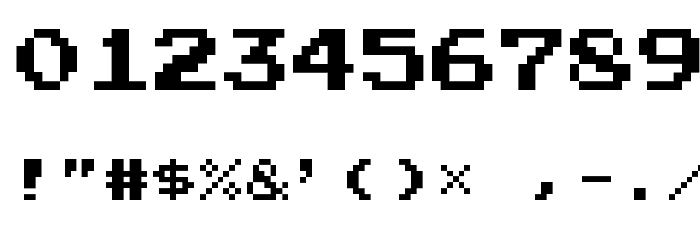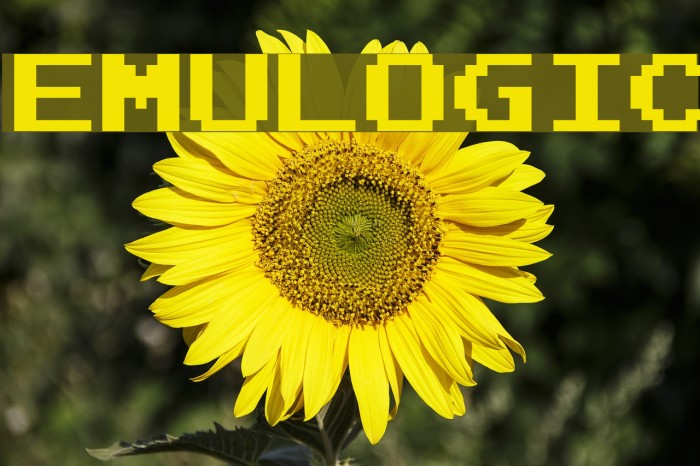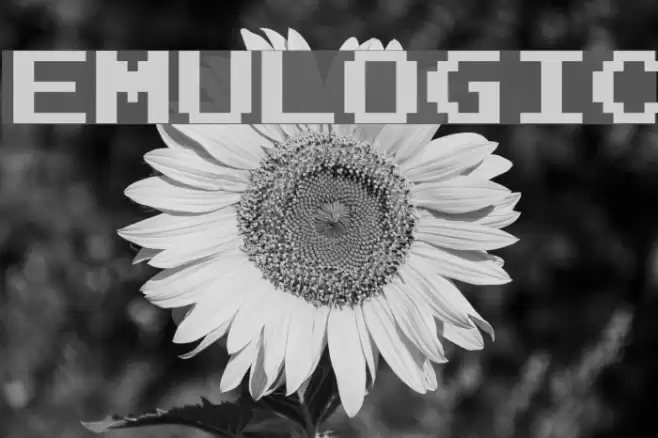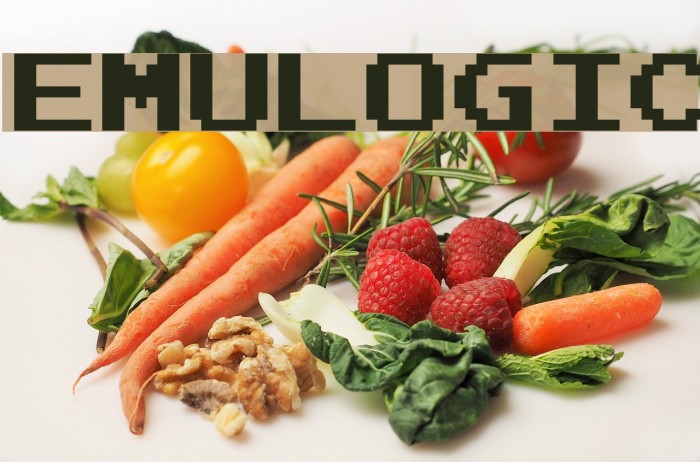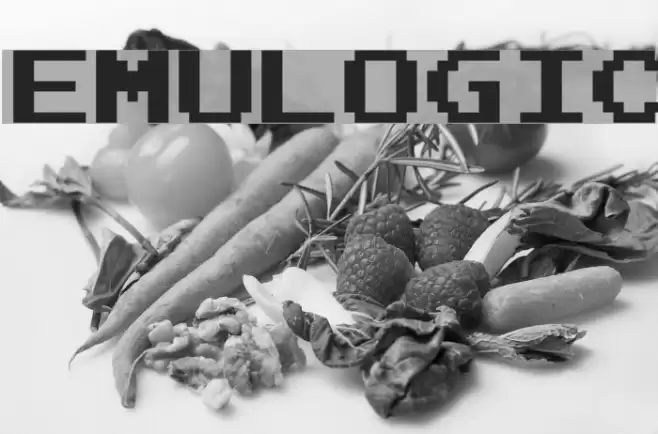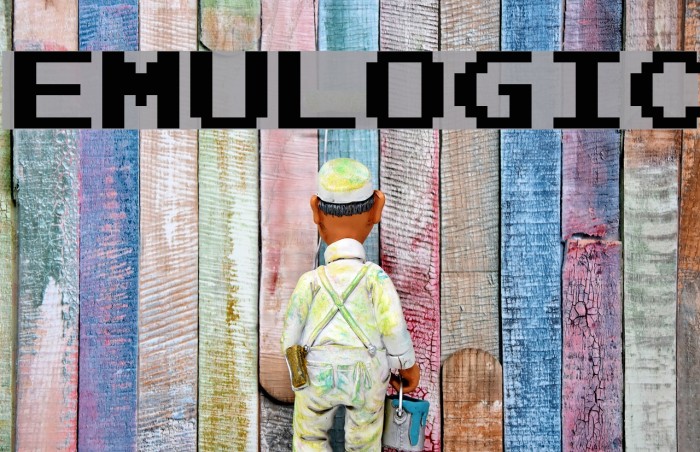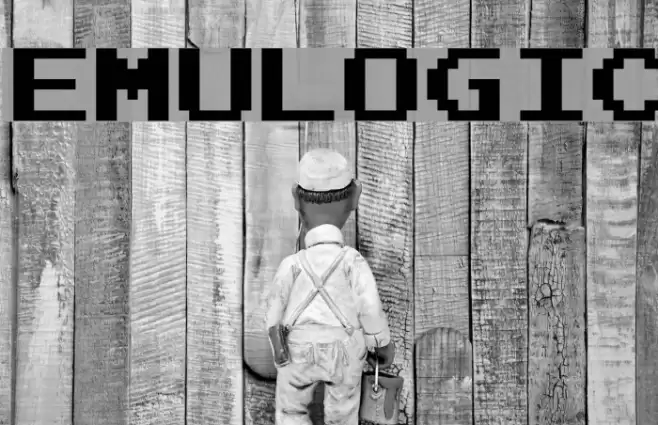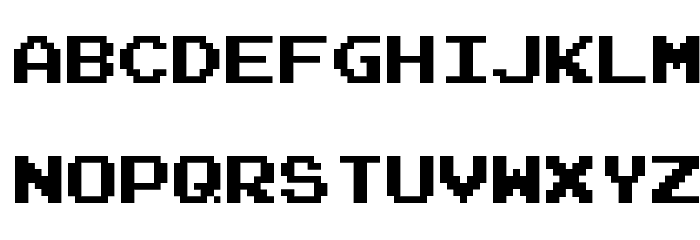
Emulogic Font
Emulogic Description
This font is a pixelated, retro-style typeface reminiscent of early video game graphics. It features blocky, square-shaped characters with consistent stroke widths, giving it a uniform and grid-like appearance. The characters are monospaced, meaning each letter and number occupies the same amount of horizontal space, enhancing its digital aesthetic. The font's simplicity and geometric form make it highly legible at small sizes, ideal for screen displays. Its nostalgic charm is perfect for projects aiming to evoke a sense of classic gaming or digital nostalgia.
| Overall Style | Retro |
| Use Case | Logos, Headlines, Digital displays |
| Proposed Projects | Ideal for video game design, retro-themed websites, digital art projects, and any creative work that seeks to capture the essence of early computer graphics. |